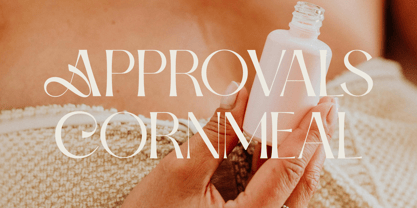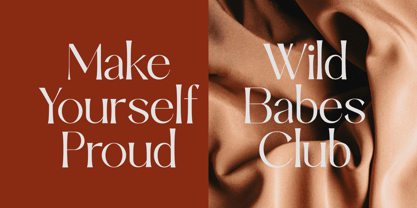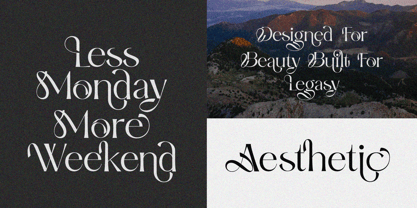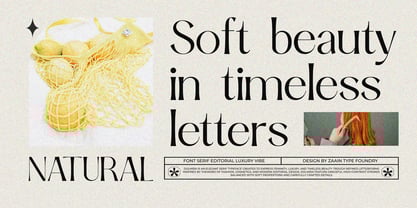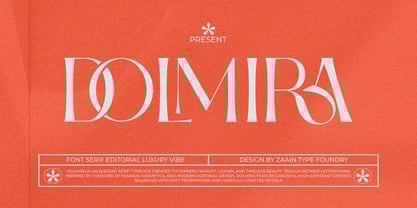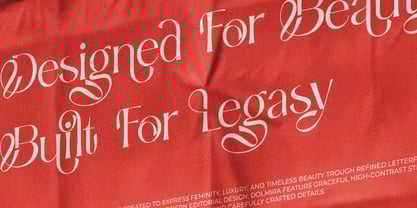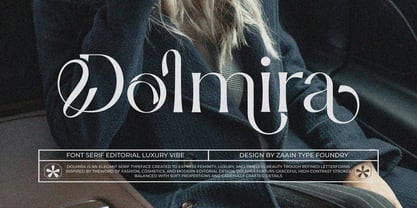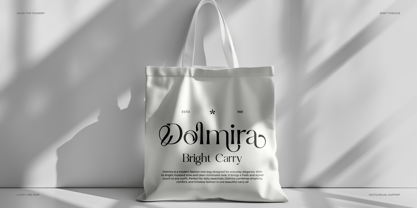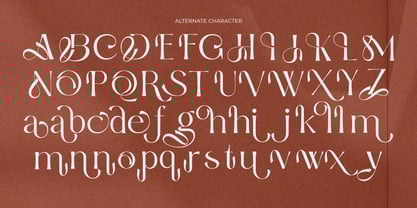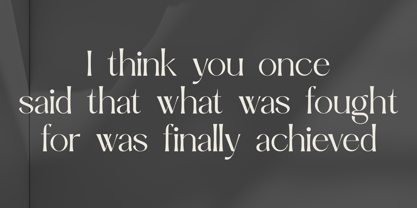
Dolmira
by Zaain Type
The Dolmira Font Family was designed by Ju Naen and published by Zaain Type. Dolmira contains 2 styles and family package options. More about this family
Dolmira is an elegant serif font that blends classic character with a refined modern touch. Featuring smooth thick-and-thin contrast, graceful letterforms, and luxurious details, Dolmira is perfectly suited for premium branding needs. Designed to deliver a sophisticated and feminine impression, this typeface is an ideal choice for fashion, cosmetics, editorial layouts, exclusive invitations, logos, and high-end packaging design. Dolmira brings a timeless atmosphere with a clean and professional aesthetic. With a strong yet gentle appearance, Dolmira is ready to become the centerpiece of any design that aims to look elegant and distinctive.